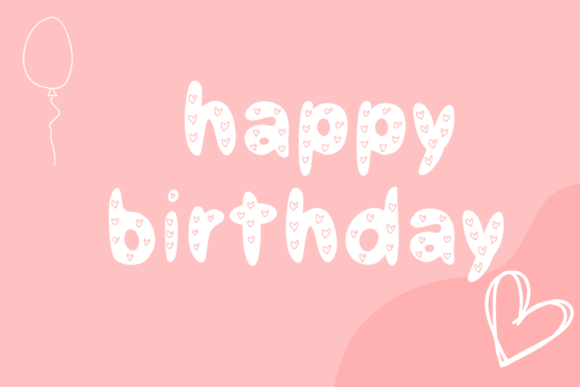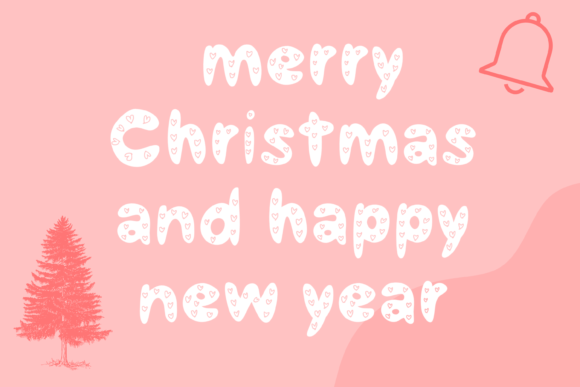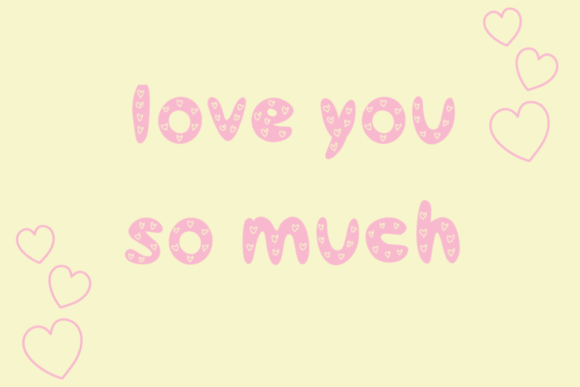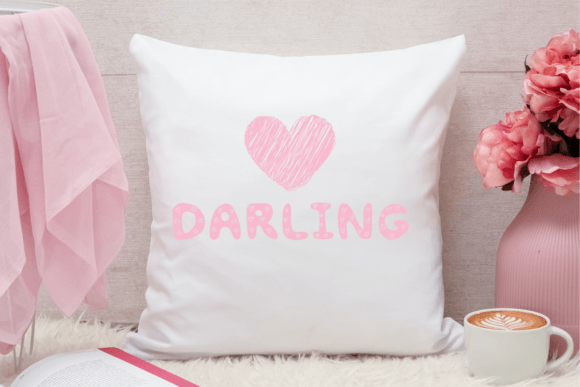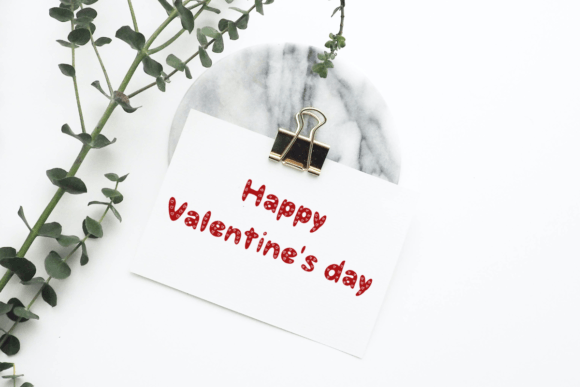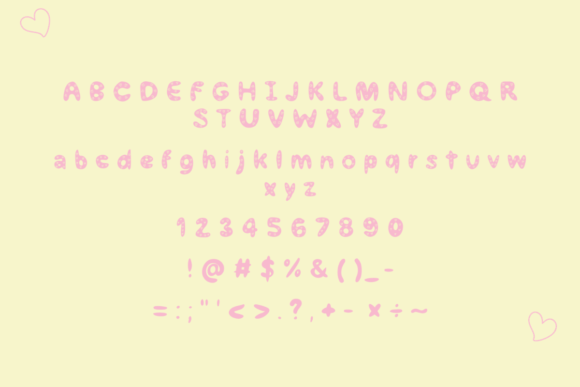
Introduction to Mon Amour Font
Mon Amour font is a romantic display font perfect for projects related to love, relations and cuteness.
Use it on your cards, flyers, banners, book titles, social media and so much more .
Key Features of Mon Amour Font